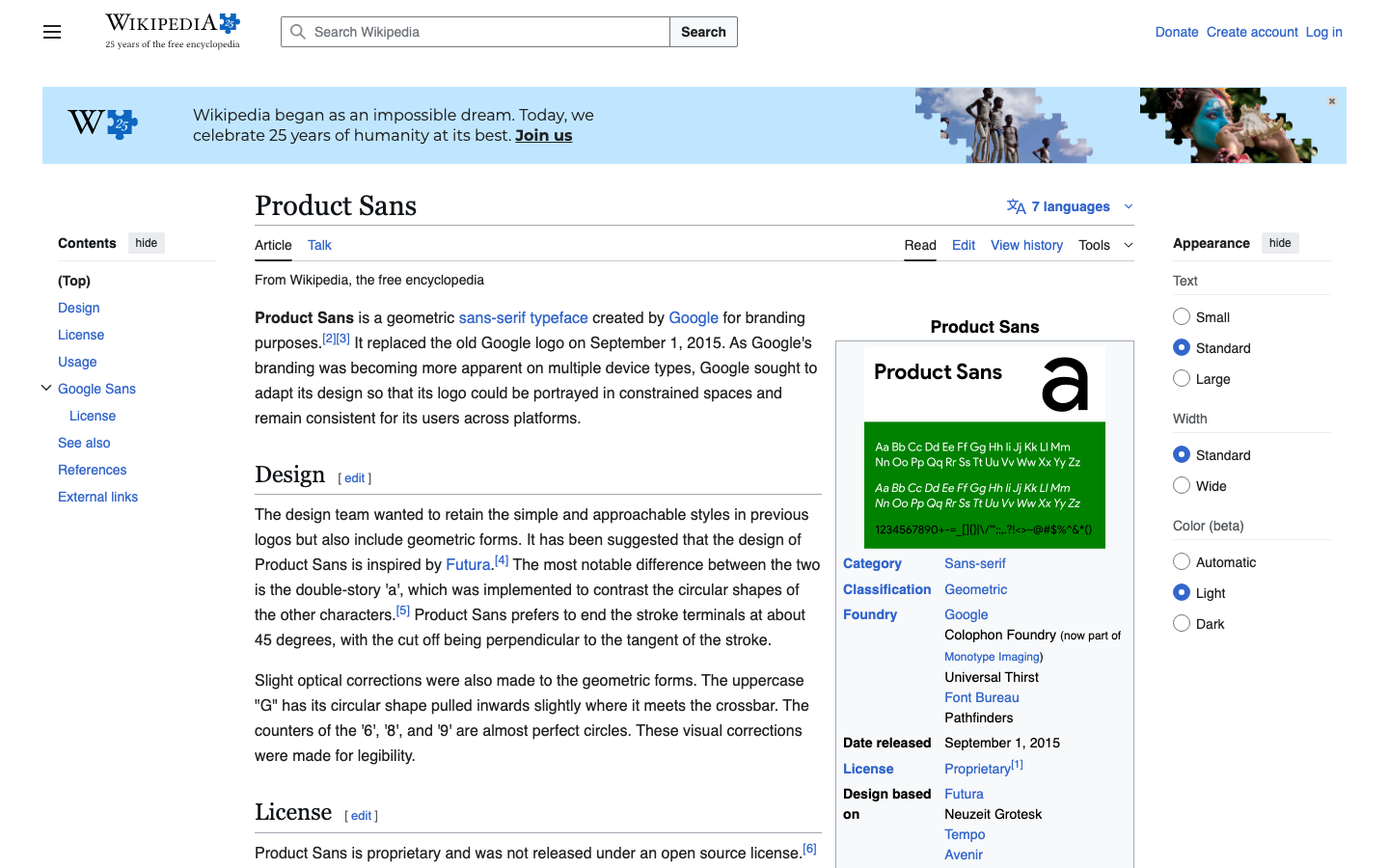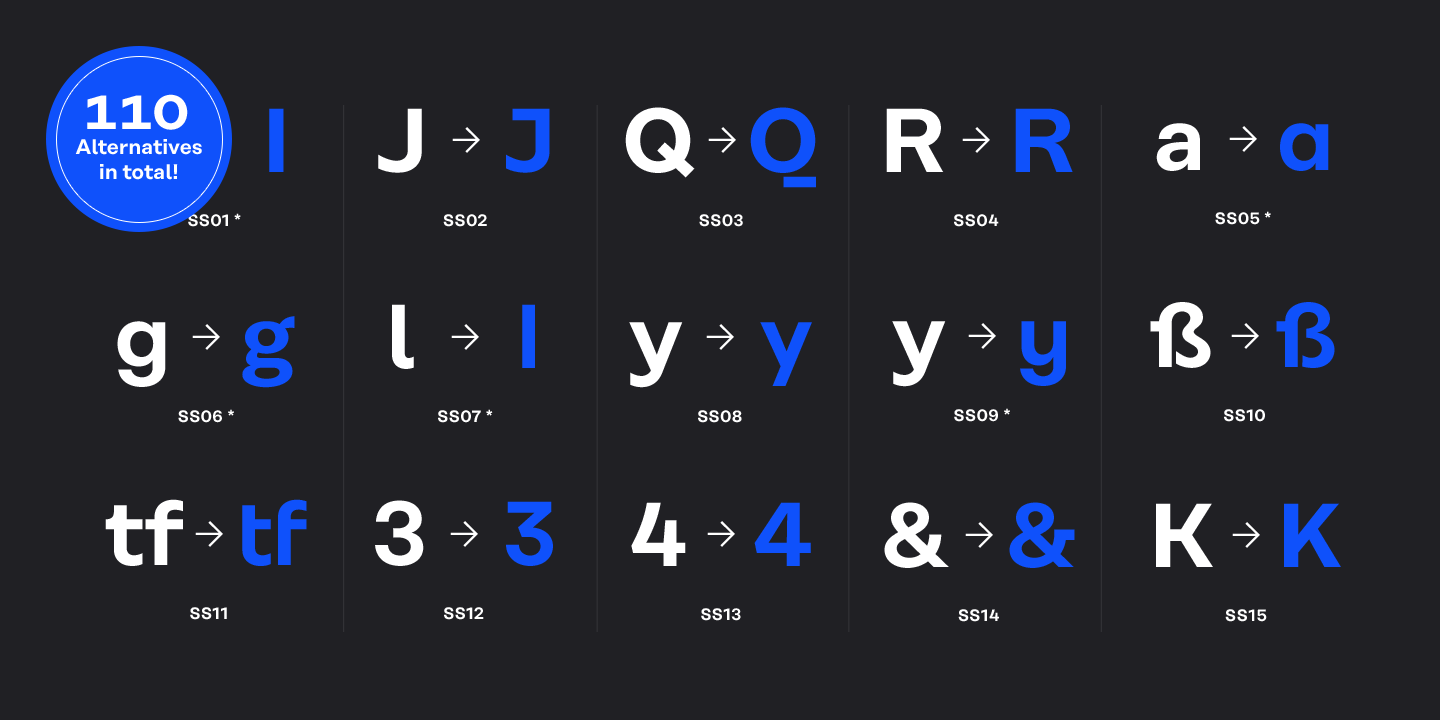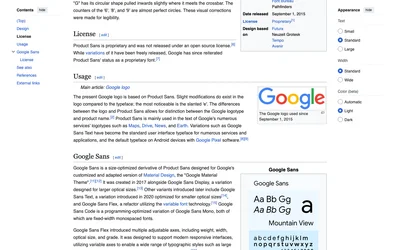
Product Sans vs Rational
Product Sans and Rational are both sans-serif typefaces sharing a geometric foundation. Where Product Sans leans tech, Rational brings display. Compare which suits your Tech project.
Recommended: Product Sans
- tech design character
- Suited for Ui and Apps
- From Google
Consider: Rational
- display design character
- Suited for Display and Editorial
- From Rene Bieder